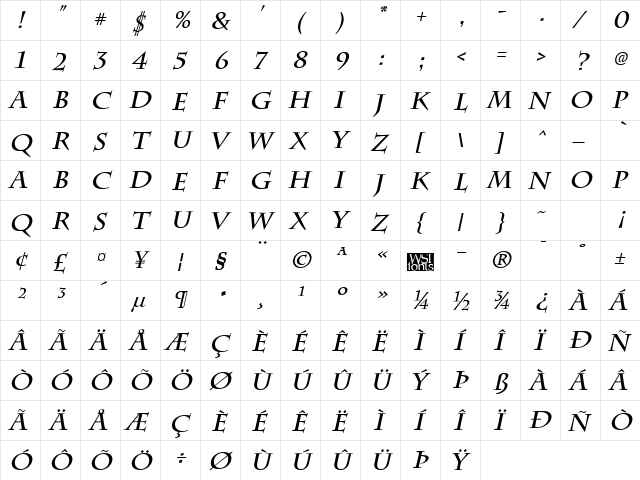
Chattsworth BoldItalic
Design Context for Chattsworth Typeface
Chattsworth offers clean, dependable letterforms without strong stylistic allegiance, making it a practical choice for designers who need flexibility. Its italic angle brings a sense of urgency and motion to the letterforms. Its bold stroke weight gives it real presence on the page.
Pro Tip: Use Chattsworth for emphasis, pull quotes, and subheadings where its slanted energy can add rhythm to the layout.